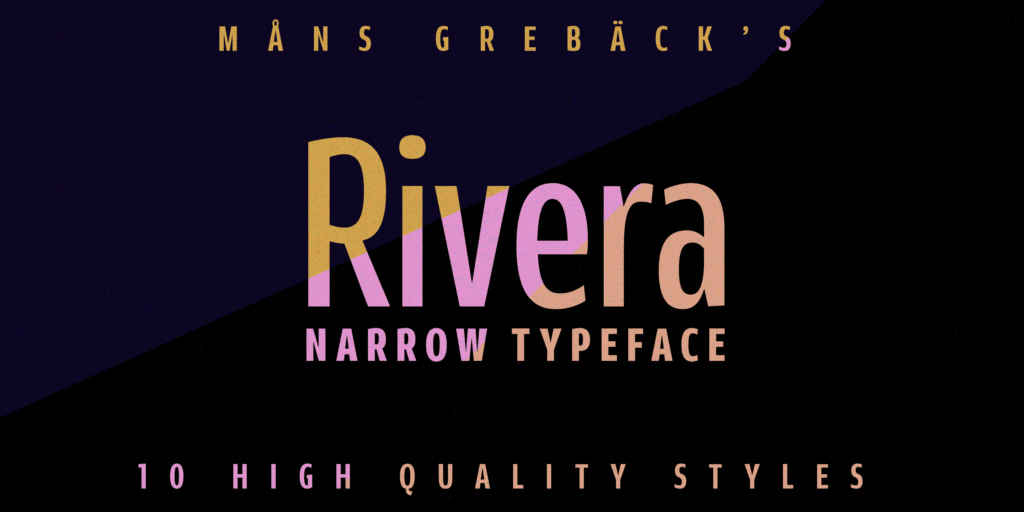
Rivera Font
About the Rivera Font
The Rivera Font is a professional sans-serif typeface.
Its tall, narrow style gives it an appearance of modernity and pride while being humble and clean.
Use it for a sleek headline, a crisp logo, or simply as a unique body text. In any case, it will lift your branding to the next level.
The Rivera family consists of 10 font styles:
Thin, Light, Regular, Bold, Black as well as each style is Italic.
The font is built with advanced OpenType functionality and has guaranteed top-notch quality, containing stylistic and contextual alternates, ligatures, and more features; all to give you complete control and customizability.
With more than 700 glyphs, it has extensive lingual support, covering all Latin-based languages, from North Europe to South Africa, and from America to South-East Asia.
It contains all the characters and symbols you’ll need, including all punctuation and numbers.